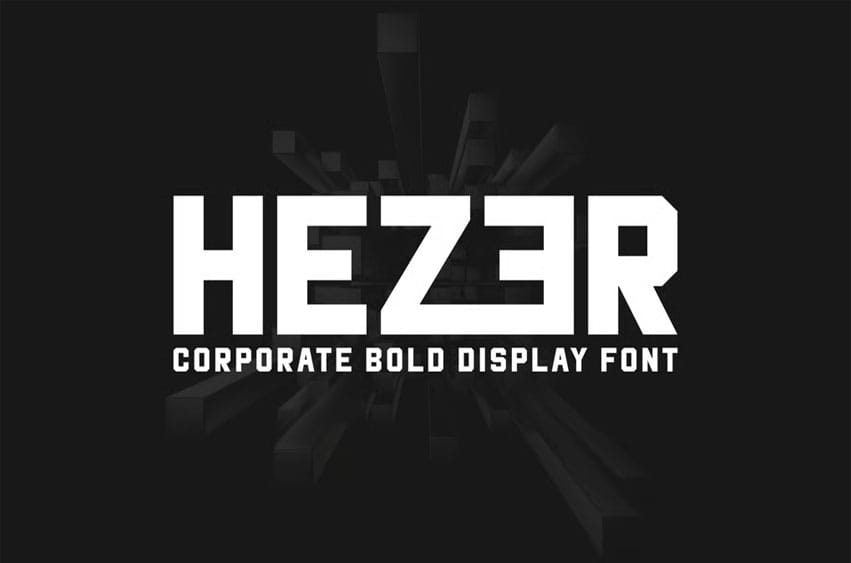
Hezer Font Corporate Bold Display Font is a bold and authentic display font.
The font is suitable for any branding project like logo, esport, and many more. outstanding in a wide range of contexts.